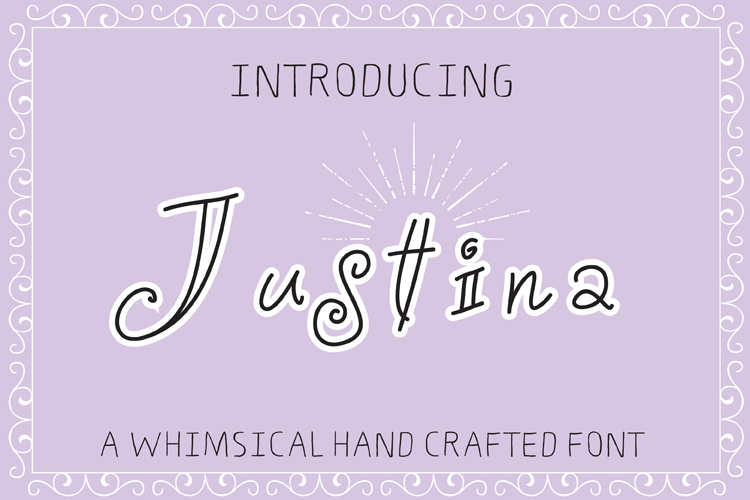
Justina
This whimsical handcrafted font will look great adorned on stationary, Tee Shirts , website branding. and much more.
It features, Uppercase, Lowercase Numerical and Punctuation.